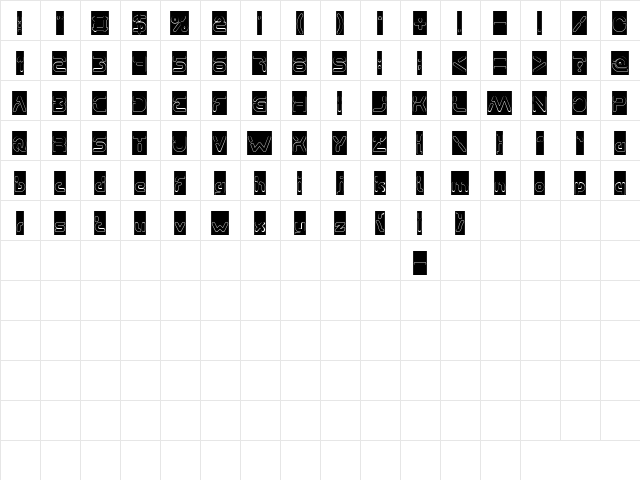
Stay Kind and REPEAT-Hollow-Inv Normal
Design Context for Stay Kind and REPEAT-Hollow-Inv Typeface
Stay Kind and REPEAT-Hollow-Inv is a composed and adaptable typeface that performs quietly and consistently across a wide range of design contexts.
Pro Tip: Use Stay Kind and REPEAT-Hollow-Inv in both headline and body roles to test its range before committing to a single application.